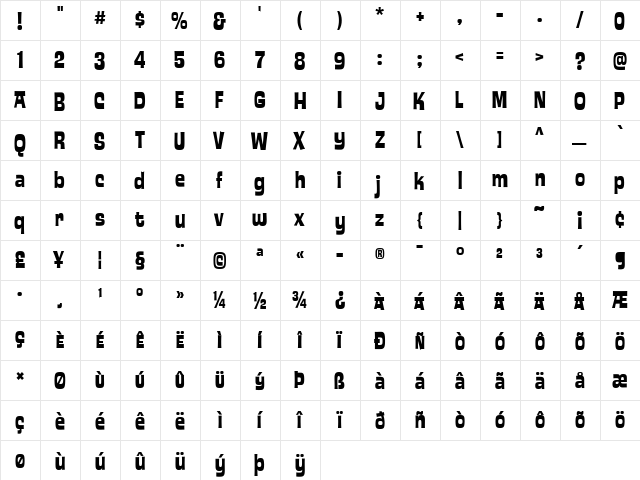
Ed Interlock
| Designer | Ed Benguiat, Ken Barber |
Design Context for Ed Typeface
Ed offers clean, dependable letterforms without strong stylistic allegiance, making it a practical choice for designers who need flexibility.